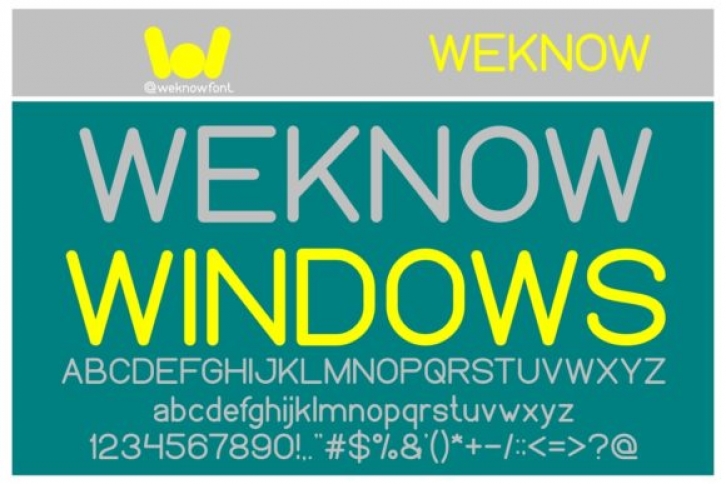
Weknow Windows is a simple and sharp looking display font, that will truly inspire your works.
headline, in corporate identity, brand identity, apparel industry,